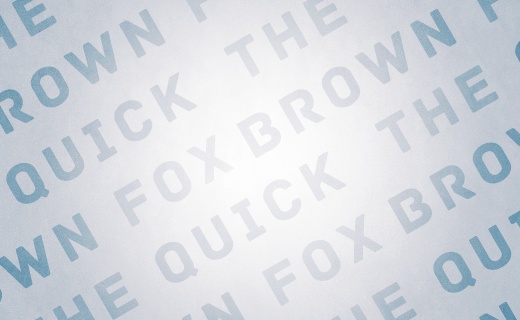
When it comes to the sophisticated world of typography, some people are purists, while others have a laid-back, do-whatever-looks-good mentality. No matter what side you’re on, it’s important to learn the language of design, especially type — this applies to all designers, curious commoners and even some developers, so buckle up! You’re about to learn something…
Here’s a bit of information that I never knew until two days ago while working with Typecache for our list of 30 alternatives to Helvetica:
“Font” and “typeface” are not interchangeable.
“Typeface” should be used when referring to the design, while “font” should be used when referring to the file, copy or file-type. For example, there is only one Times New Roman typeface designed by Victor Lardent, but nearly everyone with a computer has a copy of that font. A font is what you actually use.
To dig deeper into this slightly confusing terminology crisis, I’d like to direct your attention to a 2008 article written by FontFeed. Note: the MP3 analogy is particularly important:
The first terminology we agreed upon was in which situations we’d use font and whentypeface. Mark Simonson once recapped it handsomely in this discussion on Typophile. The gist of it is that:
“the physical embodiment of a collection of letters, numbers, symbols, etc. (whether it’s a case of metal pieces or a computer file) is a font. When referring to the design of the collection (the way it looks) you call it a typeface.”
Nick Sherman used an interesting analogy in a comment on Typographica’s Our Favorite Typefaces of 2007:
“The way I relate the difference between typeface and font to my students is by comparing them to songs and MP3s, respectively (or songs and CDs, if you prefer a physical metaphor).”
Stephen Coles agrees:
‘When you talk about how much you like a tune, you don’t say: “That’s a great MP3”. You say: “That’s a great song”. The MP3 is the delivery mechanism, not the creative work; just as in type a font is the delivery mechanism and a typeface is the creative work.’
Update, Nov. 12 2008 – Norbert Florendo commented with this concise explanation:
“font is what you use, and typeface is what you see.”
Of course, some people out there aren’t picky about this sort of thing, but it’s still a good idea to know the terminology. From here on out, I am personally going to make an effort to always use the correct terms, but there will be designers that couldn’t care less.
If you’re still confused about when to use which term, you’re not alone, and this subject is not without controversy. Some believe that “font” or “font family” refers to a collection of typefaces as well as the file, while others argue that “type family” is the proper term. For more, it’s worth exploring these articles by AIGA, Inspiration Bit and Jon Tangerine.
What do you think? Has this become a non-issue, or is the debate still relevant?